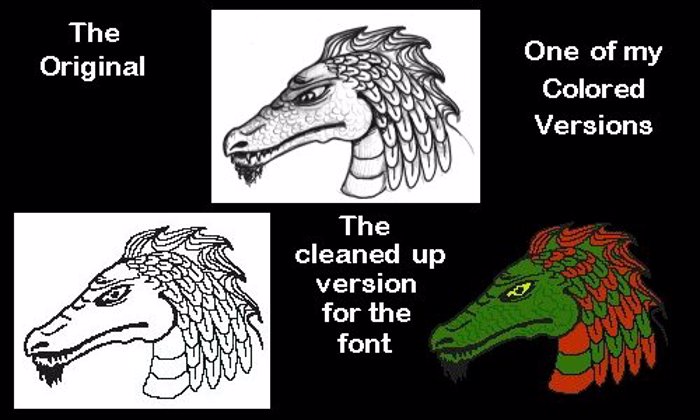
RMDragon Font
A friend of mine made a very cool picture of a dragon. In addition to making a number of graphic alphabets using the graphic....
I also attempted to make a font out of it.
It didn't turn out a well as expected....but a number of people liked it, so I'm going to add it to my page.
Here you are, Caleb ( However, the example picture's of it will be the actual graphic files I used )